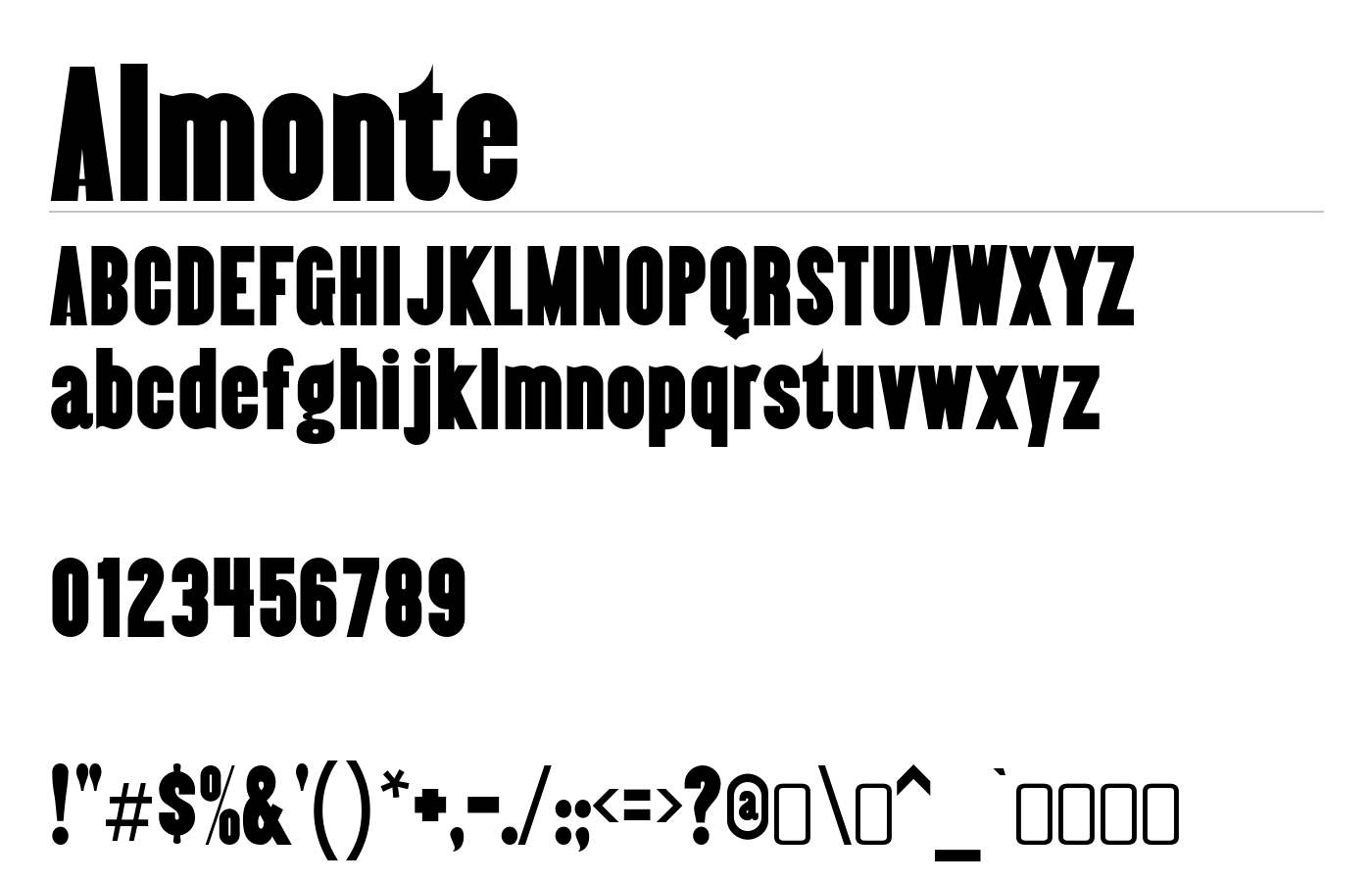
Almonte is a bold, condensed sans serif font with strong vertical strokes and a high x-height, giving it a powerful and modern presence. Its solid, geometric letterforms with minimal contrast make it an excellent choice for impactful headlines, logos, and branding that require a confident and striking look. Almonte works best in designs where clarity and boldness are key, such as posters, editorial titles, and fashion or luxury branding.
Almonte Font
About Almonte Font
| Font family | Almonte Font |
| Designer | Raymond Larabie |